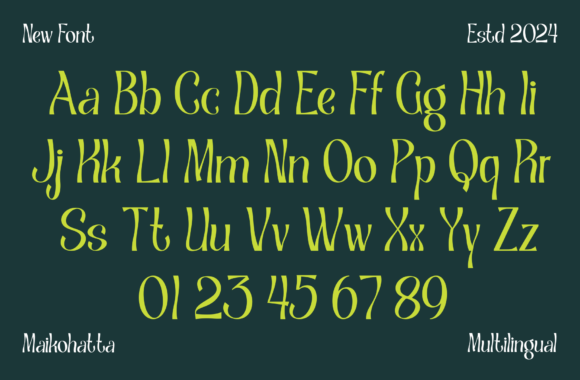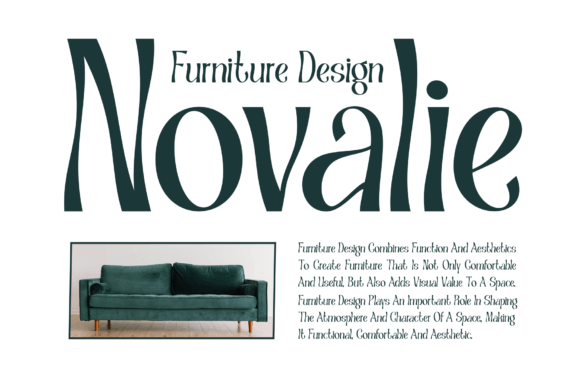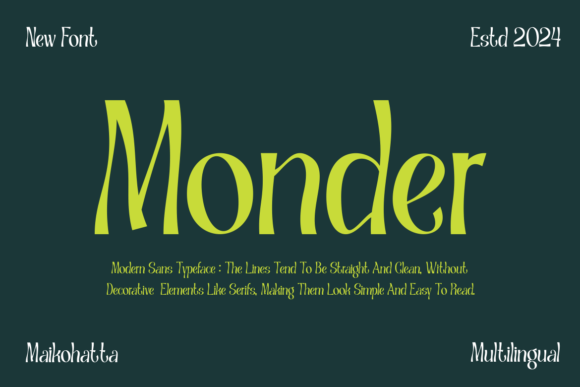
Monder Font
Designer: maikofarazhatta
Monder Font – Modern Sans Serif Typeface. This Font is a very flexible choice and can be used in a variety of design contexts. Its ability to provide a clean, professional, contemporary look and its simplicity and visual appeal make this font good for use in the world of graphic design and modern typography.